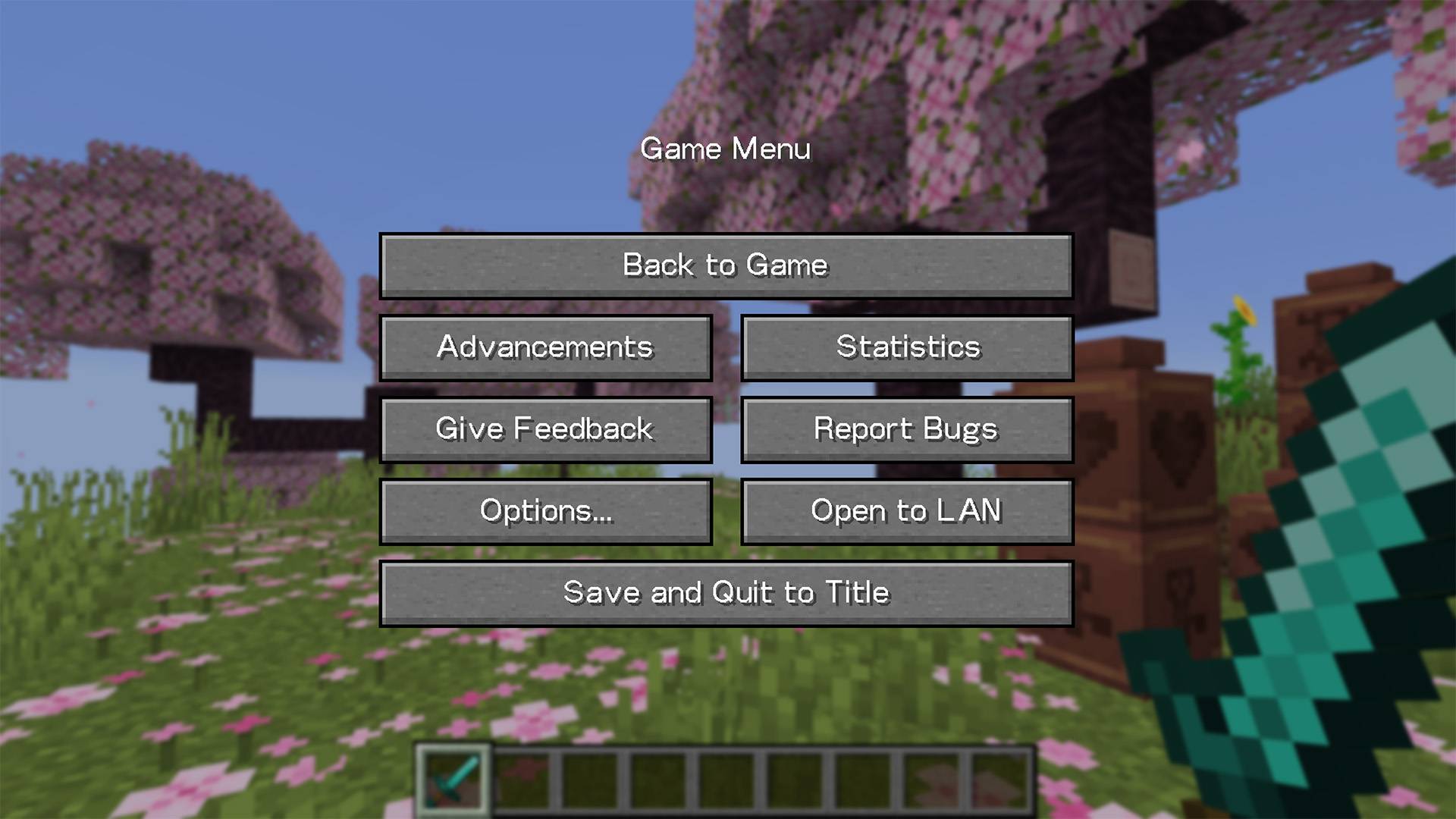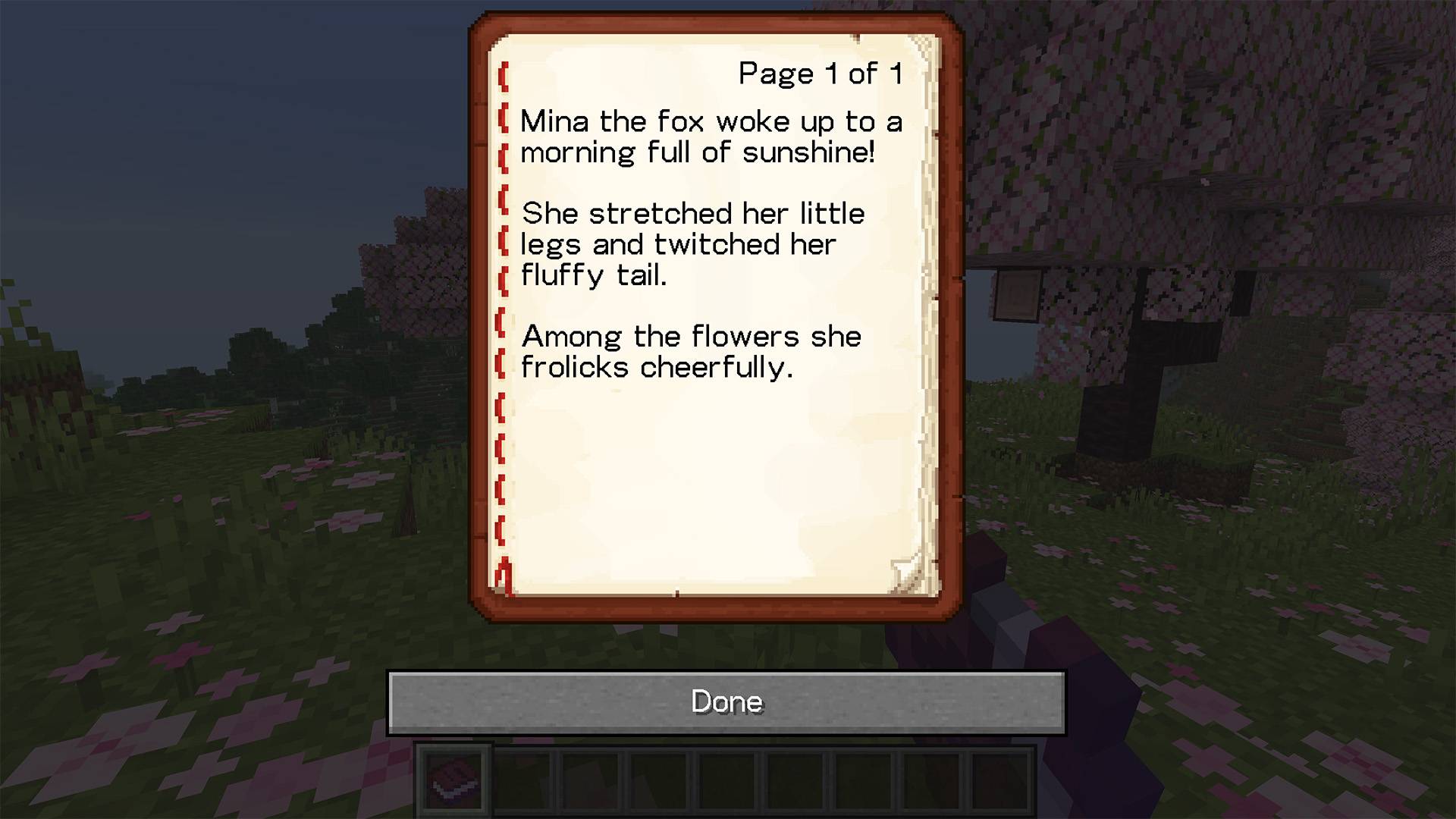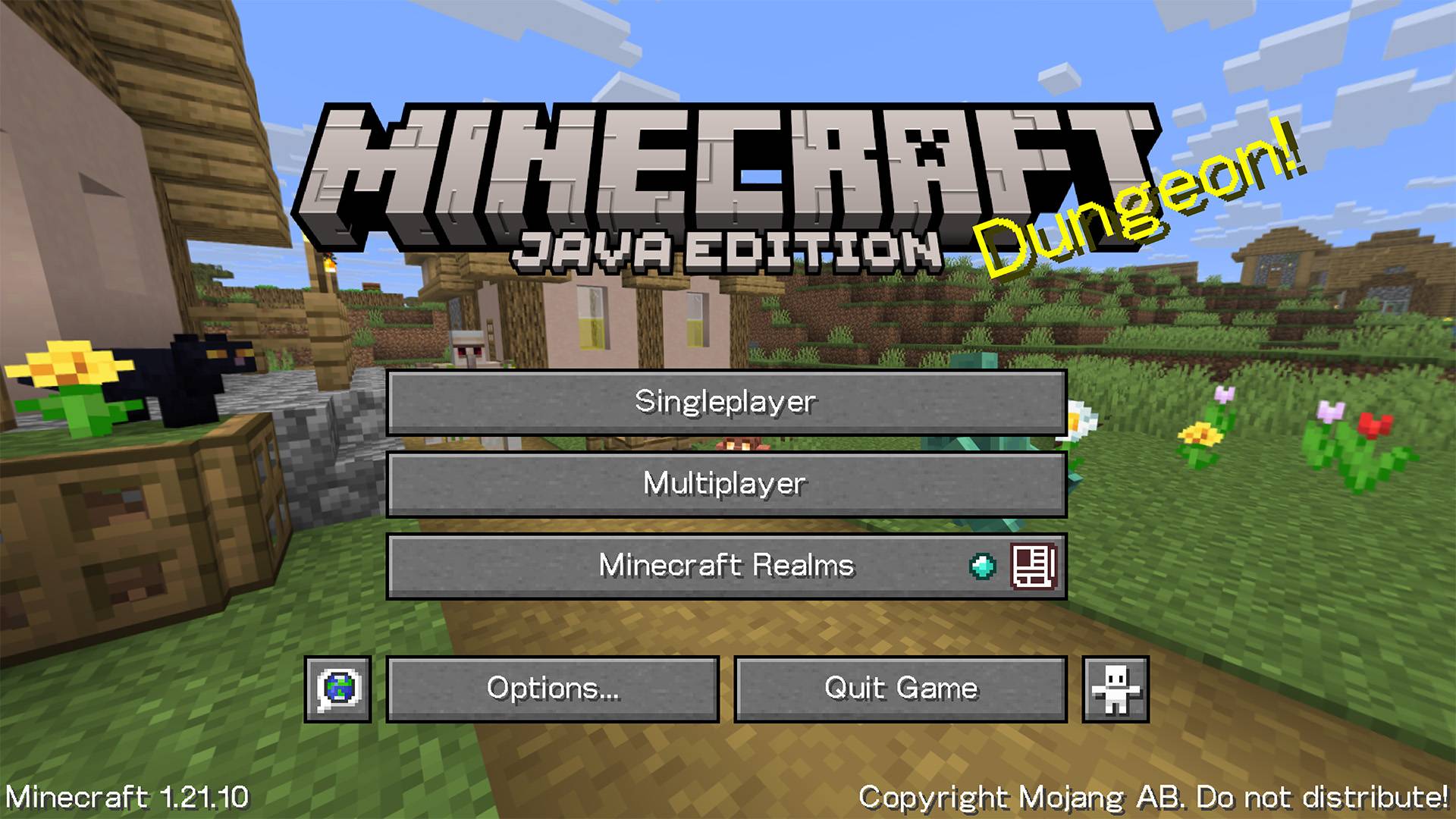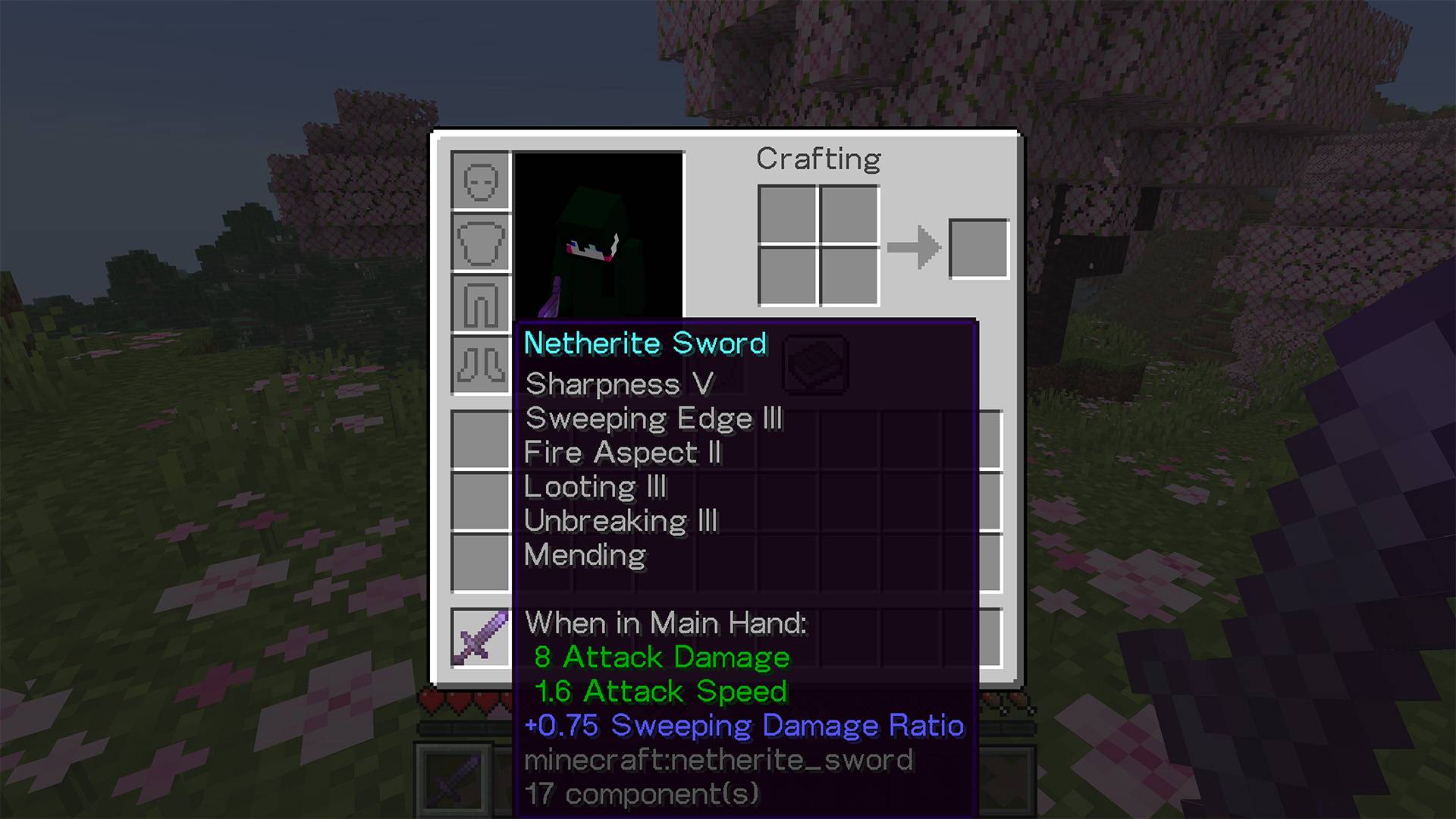
Skyliner Modern Font Pack
A modernist font for Minecraft
Skyliner Modern: A Neutral font for Minecraft
Legibility!
Skyliner Modern serves as a more legible alternative to Minecraft's iconic "Mojangles." It prioritizes clarity, simplicity, and readability.
I designed Skyliner Modern as a permutation of a typeface I created called Geo, a grotesk with a hint of geometric influence. Geo was intended to be highly legible and tonally neutral, while retaining some of the warmth and character found in geometric typefaces without becoming too stylized.
For Skyliner Modern, I adapted Geo to a 32x32 pixel grid, modifying some characters to read better in pixel resolution. I've adjusted certain letterforms to accommodate Minecraft's built-in kerning tables, so the letter spacing remains fairly even.